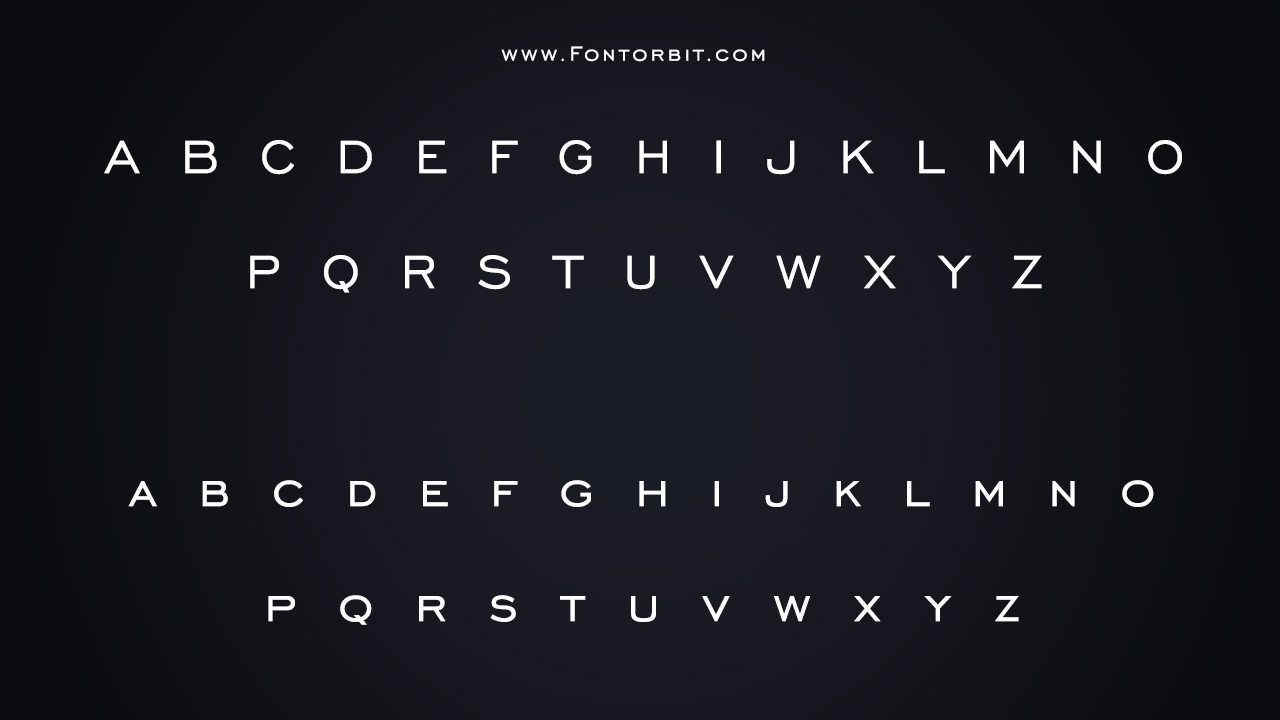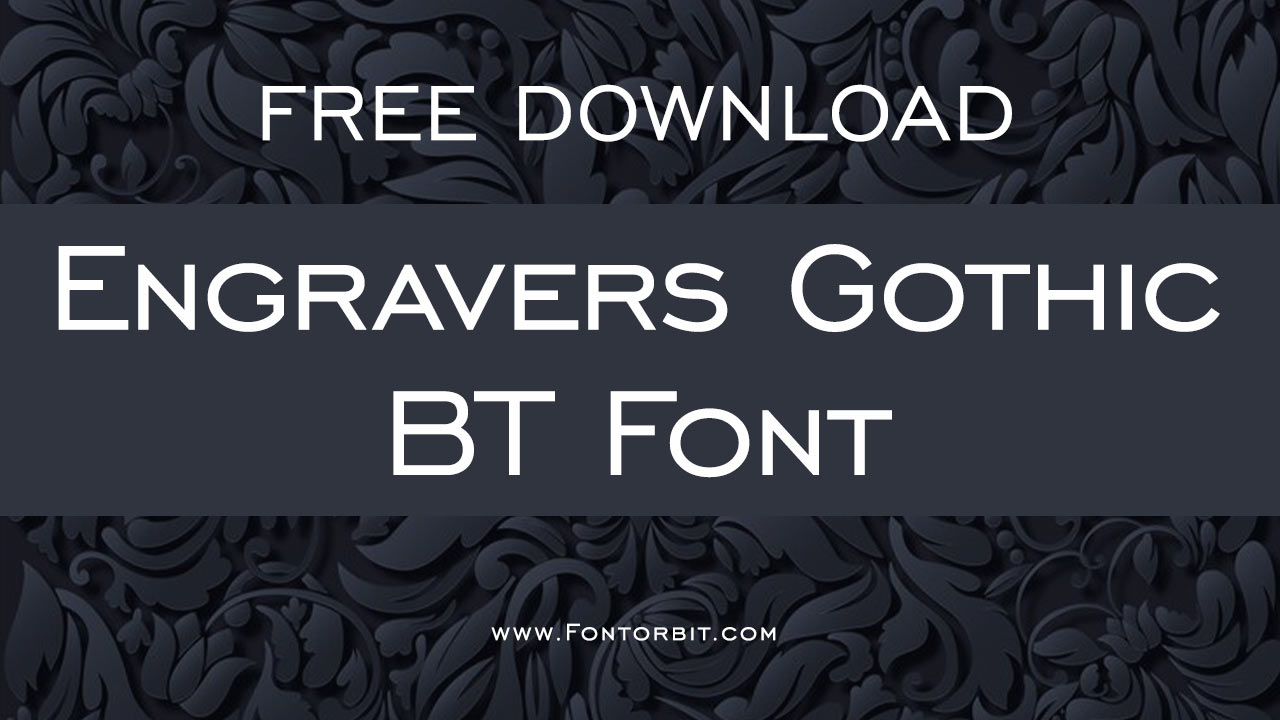
Engravers Gothic BT is a timeless, all-caps display font, originally designed by Morris Fuller Benton and published by Bitstream. It was first released in 1903 as part of the Gothic font family and has remained popular for its bold, refined, and elegant style. This typeface belongs to the Sans-serif category and is perfect for engraving or any design requiring a strong, classic appeal.
Engravers Gothic BT Family Includes
The Engravers Gothic BT family is minimalistic, primarily consisting of variations of weight and style. It offers a perfect blend of readability and boldness, making it a favorite for display purposes.
Engravers Gothic BT Regular
Notable Uses Of Engravers Gothic BT
Engravers Gothic BT has been extensively used for corporate branding, signage, invitations, and engraved lettering. Its bold and clean appearance gives it a professional and formal feel. Some notable uses include:
- Corporate logos
- Book covers
- Invitations for weddings and formal events
- Business cards
- Trophies and award engravings
Engravers Gothic BT is an ideal font for any design project that demands a strong, bold, and clean appearance. It works especially well in formal contexts such as engraved plaques, certificates, and branding for luxury items. This font is not suited for body text but shines as a display font in headings, logos, or banners.
- Corporate branding and logos
- Signage for formal events or institutions
- Engravings on metal, wood, or stone
- Invitations, especially for formal or elegant events
2.What Is The Best Use For Engravers Gothic BT?
This font is ideal for logos, engraved text, signage, and invitations.
3.Can I Use Engravers Gothic BT For Web Design?
Yes, but it’s best suited for headlines and display text, not body content.
4.What Makes Engravers Gothic BT Unique? Its All-Caps Style, Bold Weight, And Clean Design make it perfect for formal and engraved designs.
5.Is Engravers Gothic BT Good For Print Design?
Yes, it’s excellent for high-end print applications like invitations, signage, and branding materials.